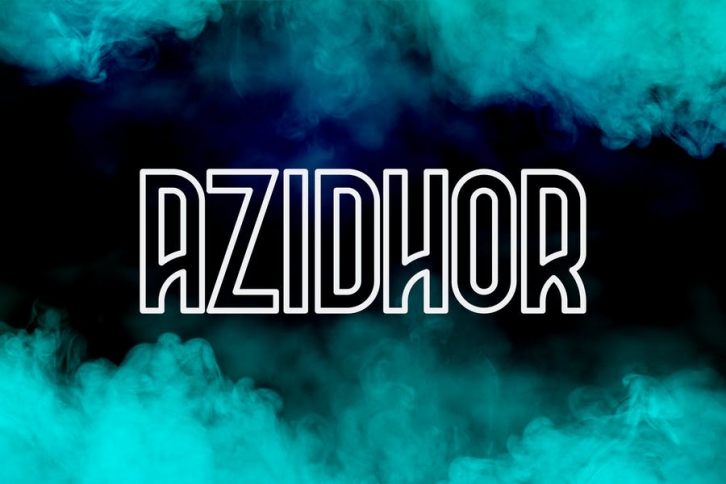
Azidhor typeface was inspired by the modern age. It has a unique yet simple appearance. The overall looking of this typeface is suitable for anyone who wants to achieve something effective and appealing.
• 26 standard letters all capitals
• 0-9 Numbers
• 24 Alternate characters with accent
• Over 40 Glypshs